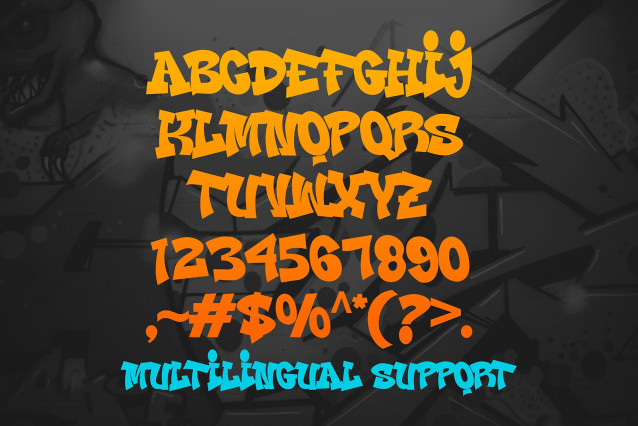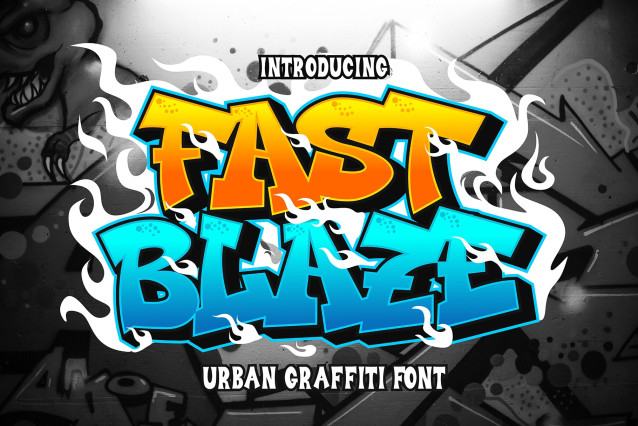
Fast Blaze Font
Fast Blaze delivers. This urban graffiti font is a powerhouse of style and attitude, crafted to bring rebellious energy to your digital creations. Whether you’re designing album covers, YouTube thumbnails, event posters, or digital artwork, Fast Blaze makes every word feel like a wild spray across a concrete wall.
Designed in All Caps for ultimate impact, Fast Blaze captures the spirit of graffiti culture with bold strokes, sharp edges, and authentic handstyle energy. Every letter looks like it just came from a freshly painted urban mural — expressive, raw, and unforgettable. Its multilingual support also ensures your message reaches across cultures without losing its punch.